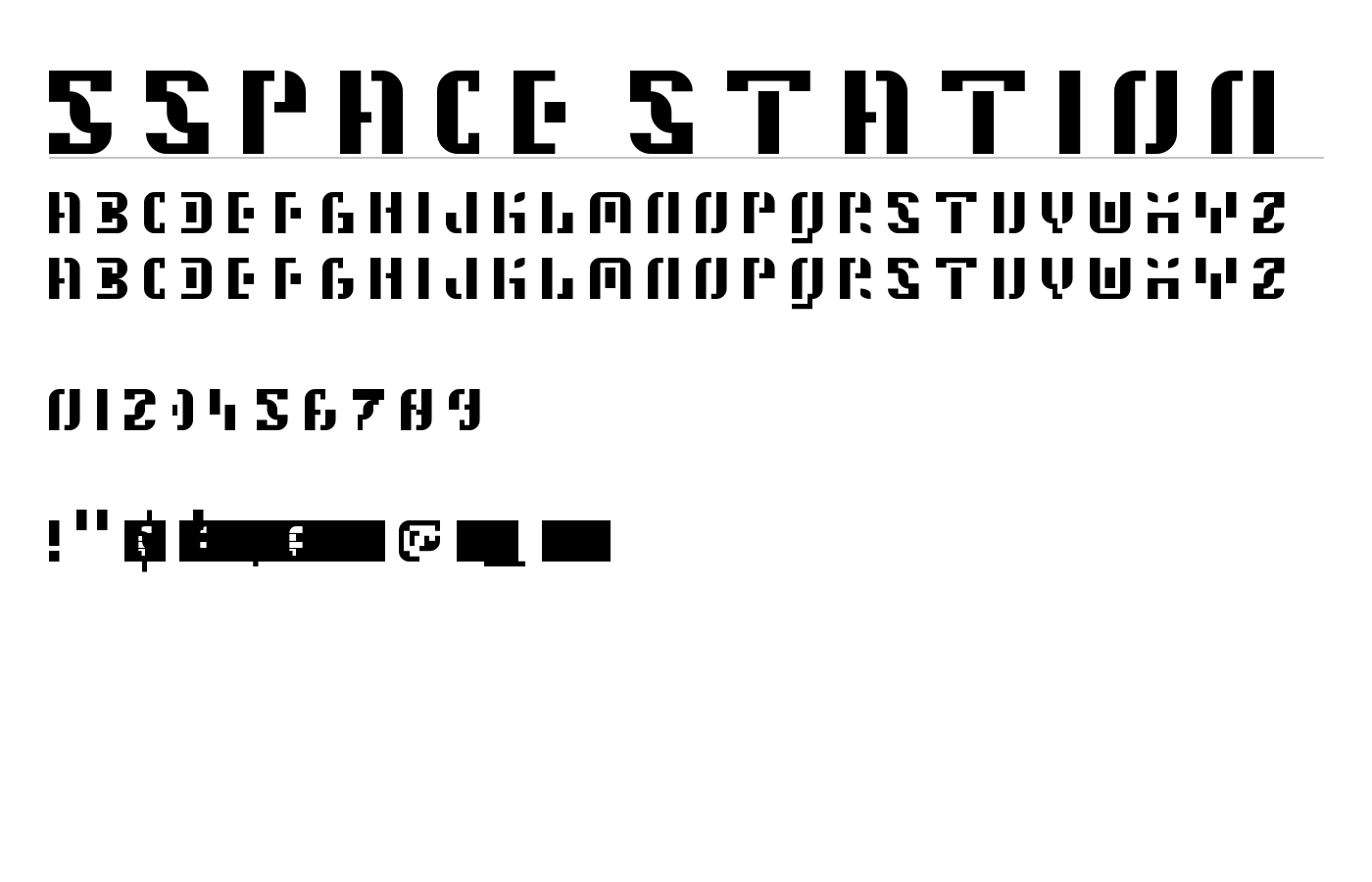
5Space Station is a bold, condensed sans serif font with a futuristic, geometric design that features sharp angles and unique cutout shapes reminiscent of industrial or sci-fi aesthetics. Its strong presence and stylized characters make it perfect for eye-catching headlines, logos, and branding related to technology, space, and modern innovation. This font works best in display uses where a commanding and modern look is desired.
5Space Station Font
About 5Space Station Font
| Font family | 5Space Station Font |
| Designer | Noah - 11 year old typomaniac |